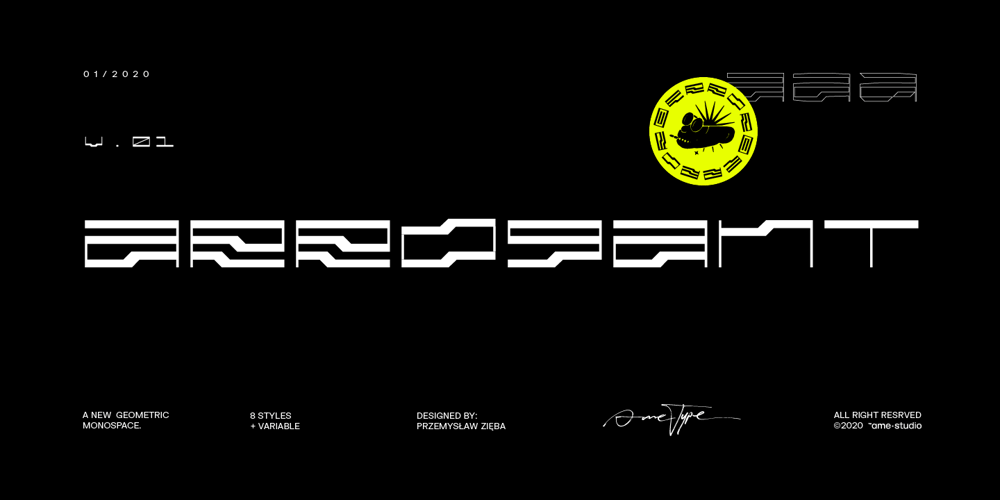
Arrogant Font Family was designed by Przemysław Zięba and published by Ametype. Arrogant contains 1 styles and family package options. ARROGANT is a geometric monospace, which in use is supposed to resemble an unknown (sci-fi) script. The letters was made in geometric style consist of repetitive modules. Font is available in 8 styles and variable version.